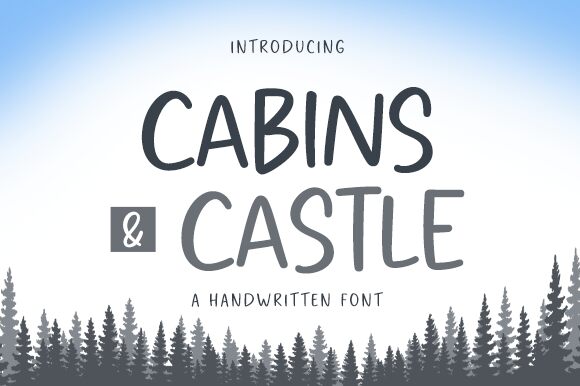
Cabins And Castles
Discover the whimsical charm of Cabins and Castles, a semi-light handwritten font crafted by the artisans at Graphix Line Studio. With its delicate strokes and simple lettering, this font evokes the nostalgia of handwritten notes, making it an ideal choice for projects that demand a touch of personal flair.
From chalkboard quotes to educational materials, Cabins and Castles brings an authentic and realistic feel that resonates with warmth and creativity. Whether you're designing bespoke invitations or branding for artisanal businesses, let this font transform your vision into a masterpiece with its unique character and style.